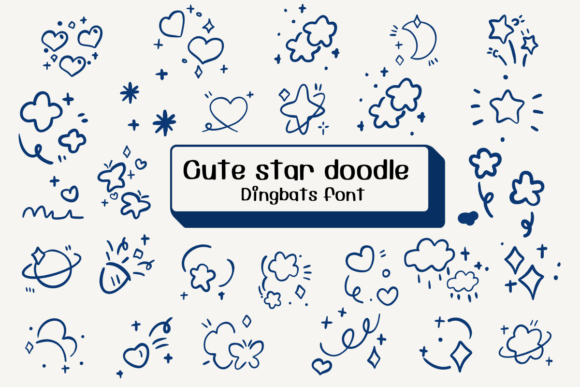
Cute Star Doodle Font: Elevate Your Creative Projects with a Celestial Touch
The Cute Star Doodle font is a delightful dingbats font that brings a celestial theme to your creative projects. With its whimsical and playful design, this font is perfect for adding a touch of magic to your wedding invitations, DIY crafts, decorations, logos, and many other creative ideas. In this article, we’ll explore the features and benefits of the Cute Star Doodle font and how it can enhance your creative projects.
What is Cute Star Doodle Font?
Cute Star Doodle is a dingbats font that features a collection of celestial-themed symbols, including stars, moons, planets, and other doodle designs. This font is carefully crafted to provide a unique and playful look that can add a touch of personality to your creative projects. The Cute Star Doodle font is perfect for crafty individuals, DIY enthusiasts, and designers who want to add a whimsical touch to their work.
Key Features of Cute Star Doodle Font
- Celestial Theme: The Cute Star Doodle font features a celestial theme that includes stars, moons, planets, and other doodle designs.
- Dingbats Font: This font is a dingbats font, which means it features a collection of symbols and icons rather than traditional letters and numbers.
- Whimsical Design: The Cute Star Doodle font has a whimsical and playful design that can add a touch of personality to your creative projects.
- Versatile: This font can be used for a wide range of creative projects, including wedding invitations, DIY crafts, decorations, logos, and more.
Benefits of Using Cute Star Doodle Font
The Cute Star Doodle font offers several benefits for creative individuals and designers. Here are some of the advantages of using this font:
- Unique Look: The Cute Star Doodle font provides a unique and playful look that can help your creative projects stand out.
- Easily Customizable: This font can be easily customized to fit your project’s theme and style.
- Time-Saving: The Cute Star Doodle font can save you time and effort by providing a pre-designed collection of celestial-themed symbols.
- Cost-Effective: This font is a cost-effective solution for adding a professional and creative touch to your projects.
Creative Ways to Use Cute Star Doodle Font
The Cute Star Doodle font can be used in a variety of creative projects. Here are some ideas to get you started:
- Wedding Invitations: Add a touch of magic to your wedding invitations with the Cute Star Doodle font.
- DIY Crafts: Use this font to create custom DIY crafts, such as paper cards, gift tags, and decorations.
- Decorations: The Cute Star Doodle font can be used to create custom decorations, such as banners, garlands, and wall art.
- Logos: This font can be used to create custom logos for businesses, events, or personal projects.
- Social Media Graphics: Use the Cute Star Doodle font to create custom social media graphics, such as Facebook posts, Instagram stories, and Twitter headers.
Tips for Using Cute Star Doodle Font
Here are some tips for using the Cute Star Doodle font effectively:
- Experiment with Colors: Try out different colors and color combinations to match your project’s theme and style.
- Mix and Match: Mix and match different symbols and icons from the Cute Star Doodle font to create a unique look.
- Use with Other Fonts: Combine the Cute Star Doodle font with other fonts to create a contrasting look.
- Pay Attention to Size: Make sure to adjust the size of the font to fit your project’s requirements.
The Cute Star Doodle font is a versatile and creative font that can add a celestial touch to your projects. With its whimsical design and wide range of uses, this font is perfect for crafty individuals, DIY enthusiasts, and designers. By following the tips and ideas outlined in this article, you can make the most of the Cute Star Doodle font and take your creative projects to the next level.
- Q: What is the Cute Star Doodle font?
A: The Cute Star Doodle font is a dingbats font featuring a collection of celestial-themed symbols, including stars, moons, planets, and other doodle designs.
- Q: What can I use the Cute Star Doodle font for?
A: You can use the Cute Star Doodle font for a wide range of creative projects, including wedding invitations, DIY crafts, decorations, logos, and more.
- Q: Is the Cute Star Doodle font easy to use?
A: Yes, the Cute Star Doodle font is easy to use and can be customized to fit your project’s theme and style.